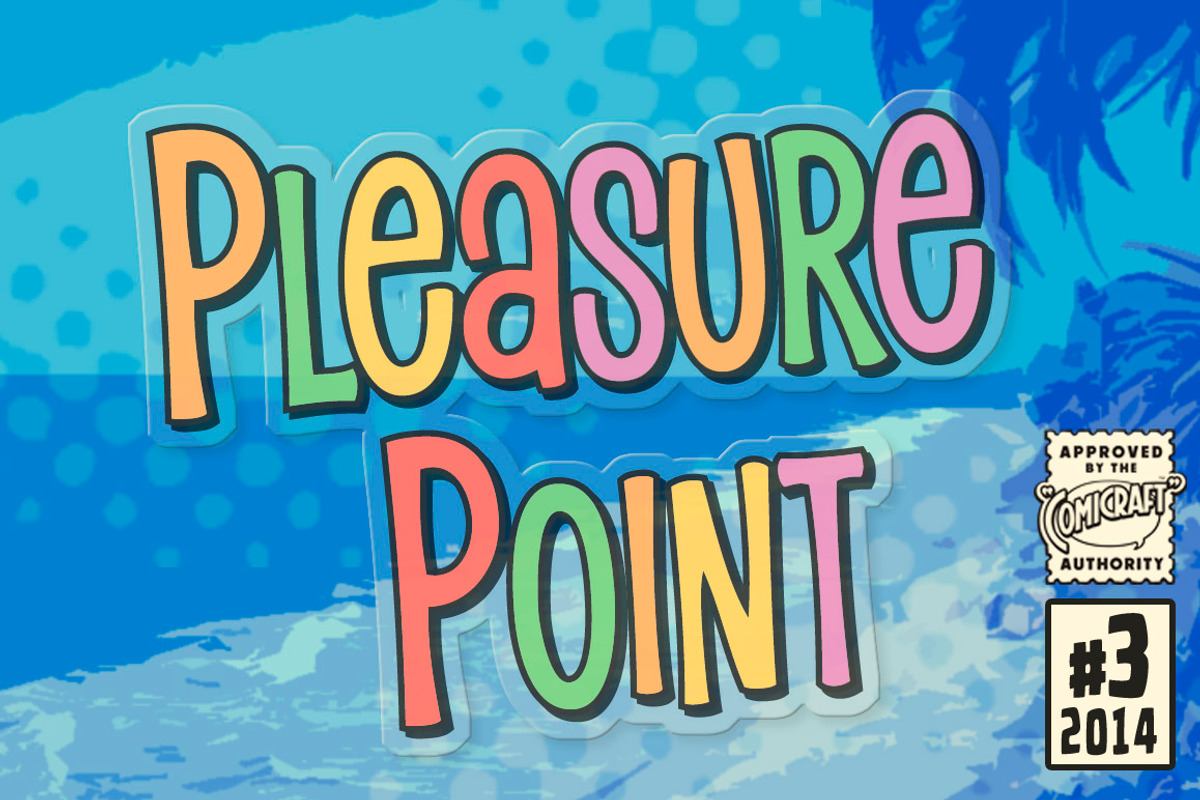
Pleasure Point Font Free Download is a breezy, laid-back typeface that channels the chill vibes of coastal living. With its smooth curves and relaxed handwritten style, this font is perfect for beach-themed branding, surf apparel, summer event posters, lifestyle blogs, and social media graphics that radiate warmth and ease.
Designed to feel carefree yet stylish, Pleasure Point brings a touch of personal charm to your text while staying clean and legible. Whether you're crafting logos, signage, or creative content, this font delivers a casual elegance that stands out.